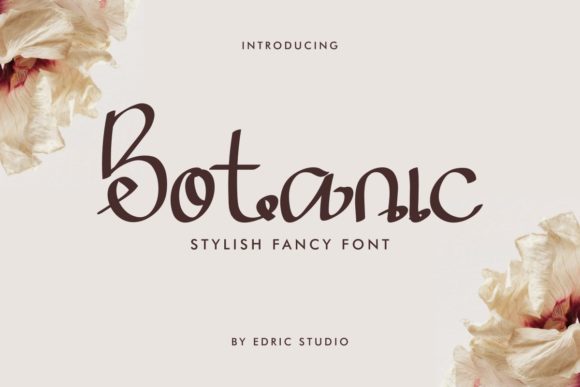
Prepare yourself to be captivated by Botanic Font, a script font family that exudes a whimsical charm and timeless elegance. Step into a world of visual enchantment where your designs take center stage. Botanic Font is not merely a collection of letters; it's an artistic journey that transforms words into captivating expressions. Its delicate strokes and graceful curves evoke a sense of playfulness and sophistication, inviting you to explore the boundless possibilities of creative expression.
Unleash your imagination and create eye-catching logos that command attention. Botanic Font's unique character adds a touch of magic to your branding, making your designs stand out from the crowd. Let your words dance across the screen in stunning beauty, conveying your message with style and grace. Whether you're creating marketing materials, website designs, or social media posts, Botanic Font will elevate your visual communication to new heights.
Transport your audience to a world of heartfelt emotions with Botanic Font. Its handwritten charm adds a personal touch to your wedding videos, capturing the essence of love and joy. Every stroke and every curve tells a story, evoking cherished memories and creating a lasting impression. Allow Botanic Font to weave its magic into your most special moments, transforming them into visual masterpieces that will be treasured for a lifetime.
Explore the boundless creativity of Botanic Font and discover a world of endless possibilities. Its versatility knows no bounds, adapting seamlessly to a myriad of design projects. From elegant invitations to heartfelt greeting cards, Botanic Font adds a touch of sophistication and charm to every creation. Embrace the power of beautiful typography and elevate your designs to new heights.
Welcome to the world of Botanic Font, where visual enchantment meets emotional resonance. Let your creativity blossom as you embark on a journey of self-expression. Botanic Font is more than just a font; it's an invitation to let your imagination run wild and create designs that captivate and inspire. Transform your visions into reality with Botanic Font and experience the magic of typography like never before.